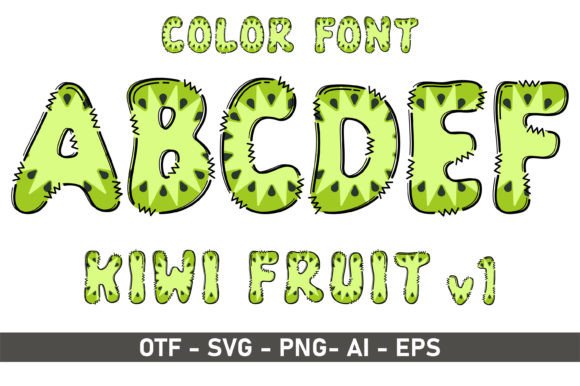
In a world teeming with monotony, arouse your artistic soul with Kiwi V1, the color font family that's poised to ignite your creative spark. Unleash your inner artist and transcend boundaries with this symphony of colors, designed to evoke emotions and transport you to realms of boundless inspiration. Step into a world where imagination dances on the canvas of your designs, where whimsical letters pirouette and twirl, leaving trails of enchantment in their wake.
Imagine the joy you'll feel as you craft captivating posters that leap off the page, inviting viewers on a visual odyssey. Picture the smiles that will bloom when your invitations burst forth in a kaleidoscope of hues, promising adventures yet unknown. Kiwi V1 is the secret ingredient that transforms ordinary creations into extraordinary masterpieces.
Let your imagination run wild as you conjure up children's books that ignite young minds, where each page is a portal to a world of wonders. The whimsical curves and vibrant colors of Kiwi V1 will weave tales that capture hearts and minds, nurturing a lifelong love for literature. Unleash the magic within, and let Kiwi V1 be your guide.